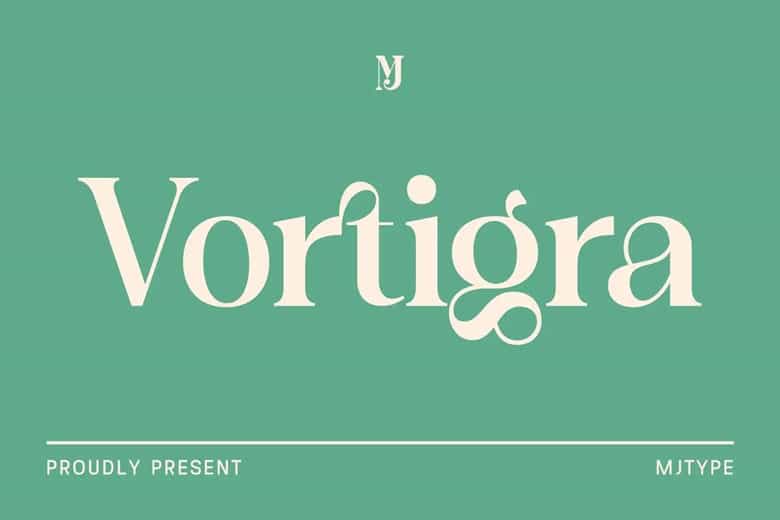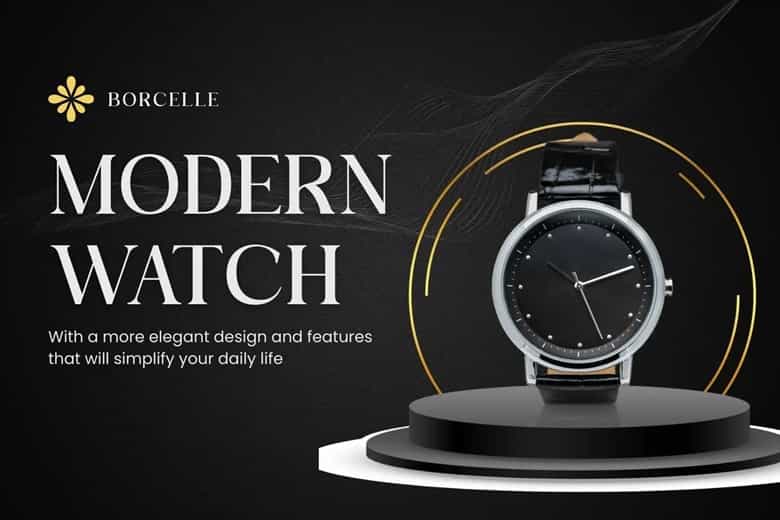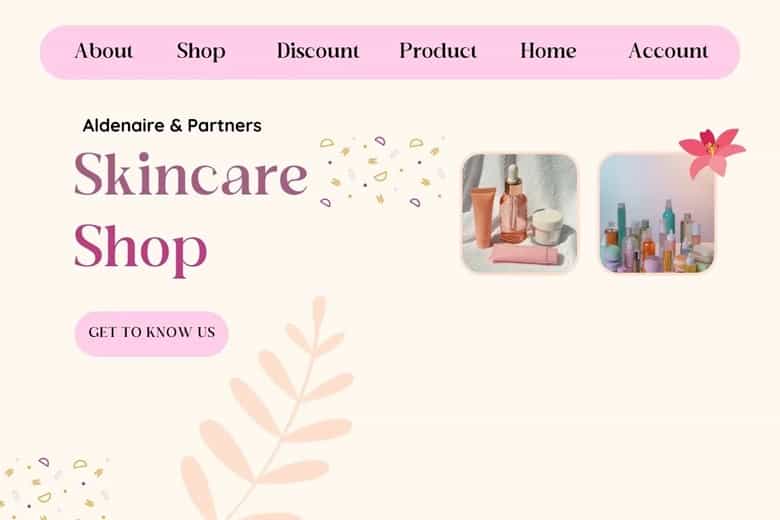
Vortigra is a classy and glamorous serif font that has a subtle air of classic sophistication. It can be safely stated that its design is borrowed from the design trends of the design year 1970s. It is particularly suitable for headlines and display text in which adopting a classy look should go well.